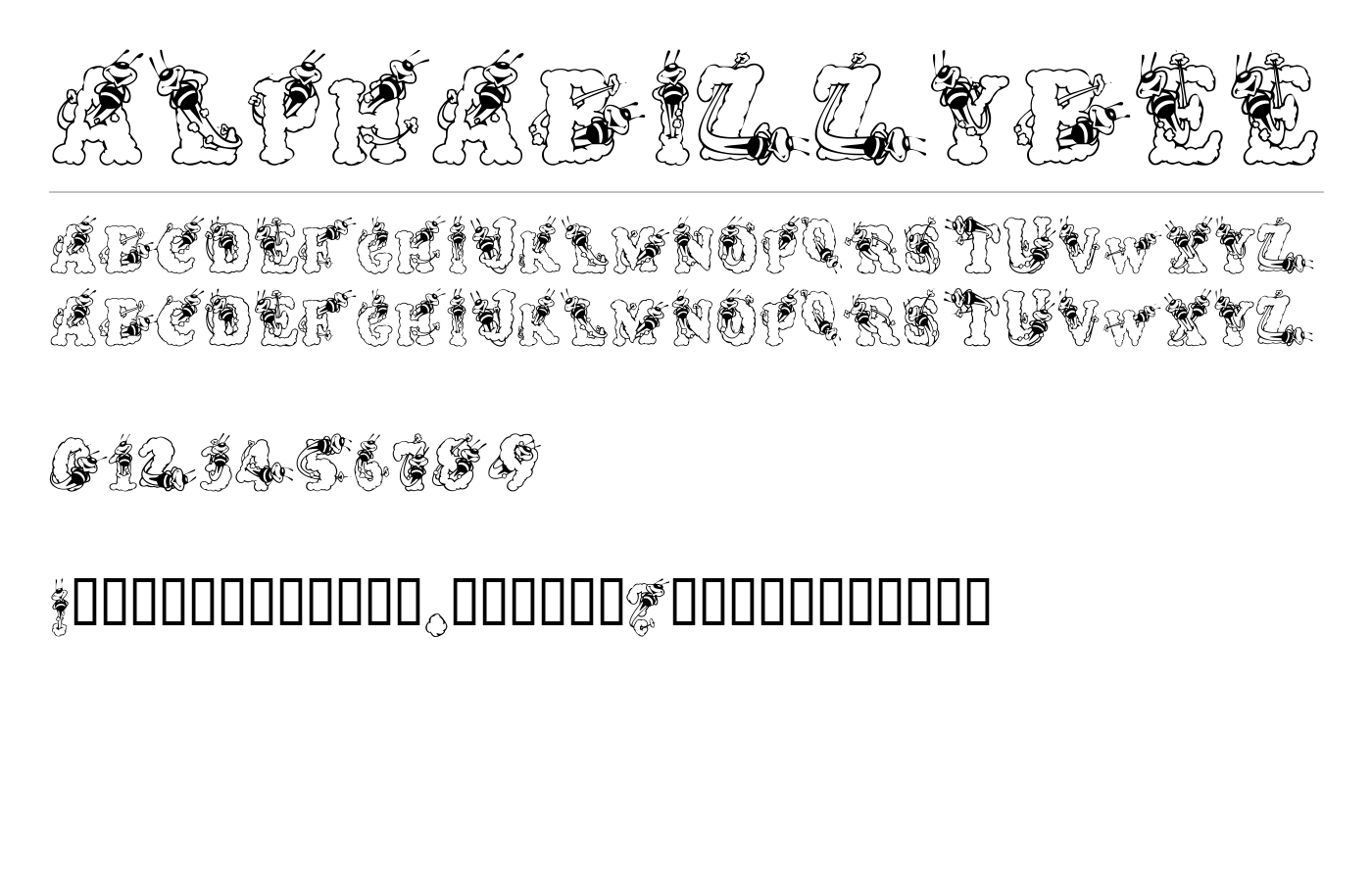
AlphaBizzyBee is a playful, decorative display font featuring bold, bubbly letterforms adorned with charming bee illustrations. Its whimsical style and detailed character design make it perfect for fun, lighthearted branding, children's materials, or creative posters where a unique and friendly appearance is desired. This font adds a lively, animated touch that instantly captures attention and conveys a cheerful personality.
AlphaBizzyBee Font